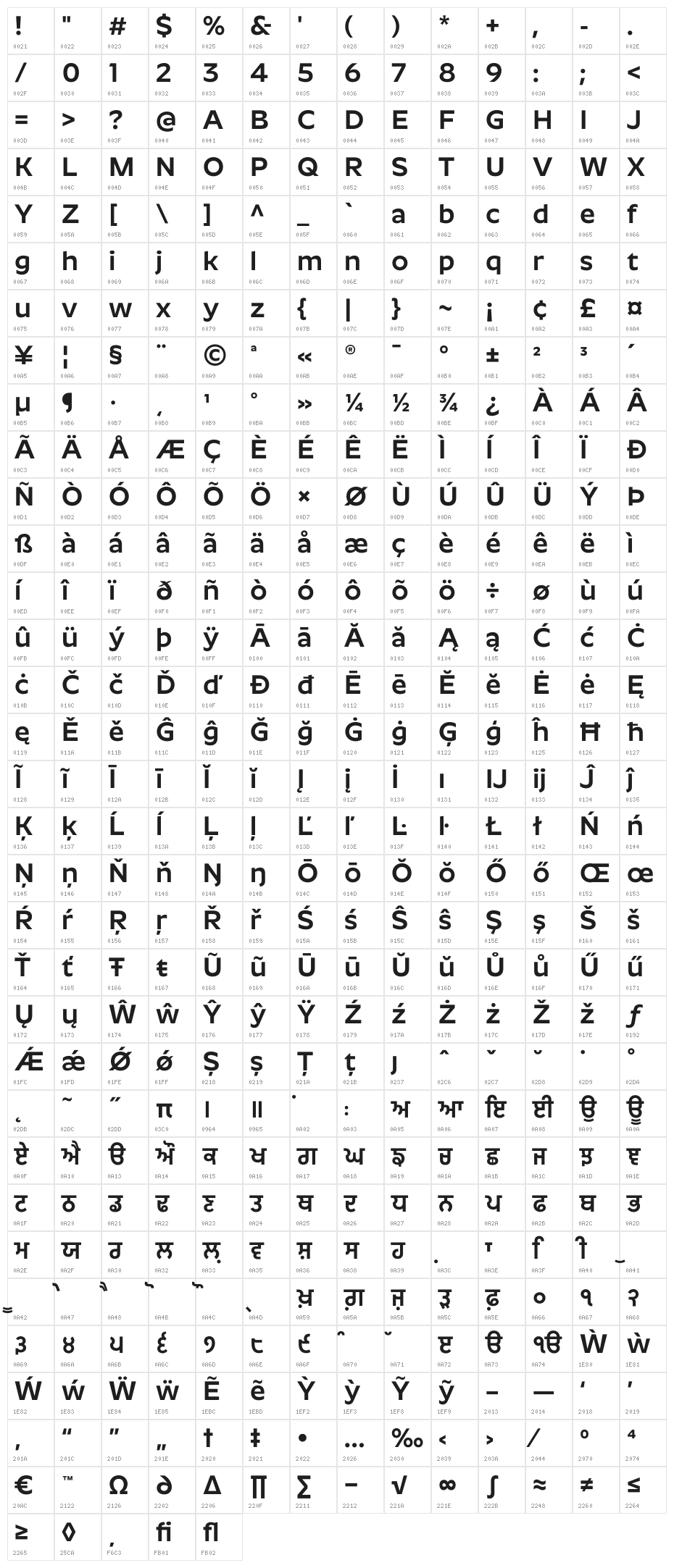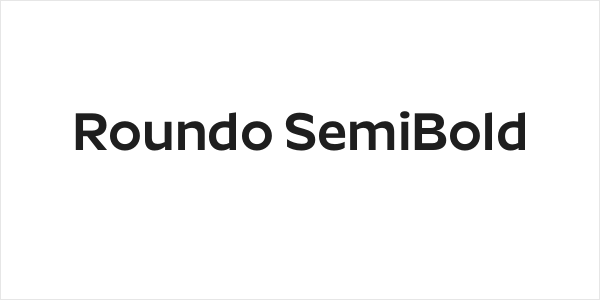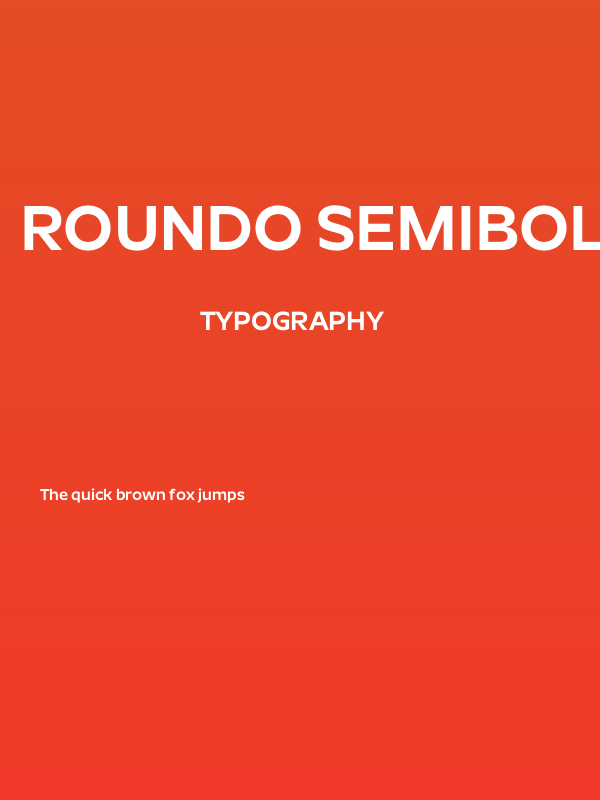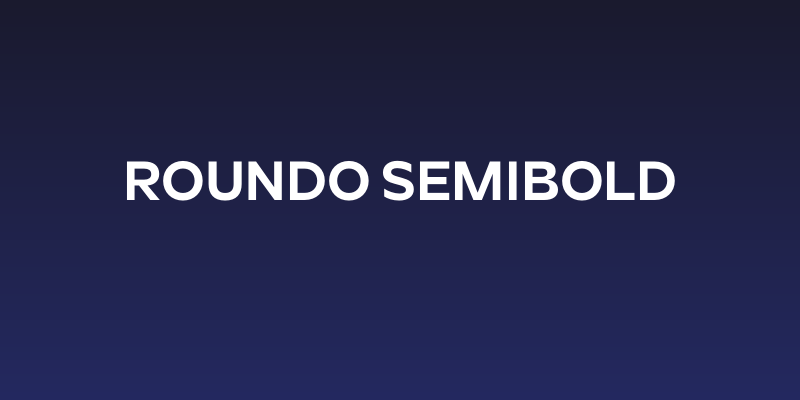
Roundo SemiBold Font
Roundo SemiBold Description
This typeface features a clean and modern design with smooth, rounded edges that give it a friendly and approachable appearance. The characters are well-proportioned, with a consistent stroke width that maintains readability across various sizes. The uppercase letters are bold and assertive, while the lowercase letters retain a softer, more casual feel. Numerals are clear and distinct, making them suitable for both display and text purposes. The special characters are designed to complement the overall style, ensuring versatility in different contexts.
| Proposed Projects | Ideal for branding, advertising, web design, and user interfaces where a modern and approachable look is desired. |